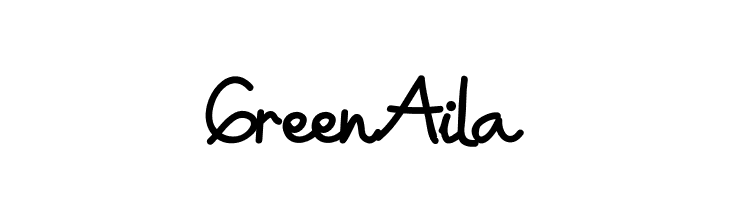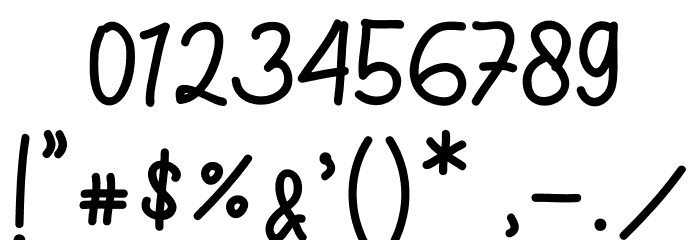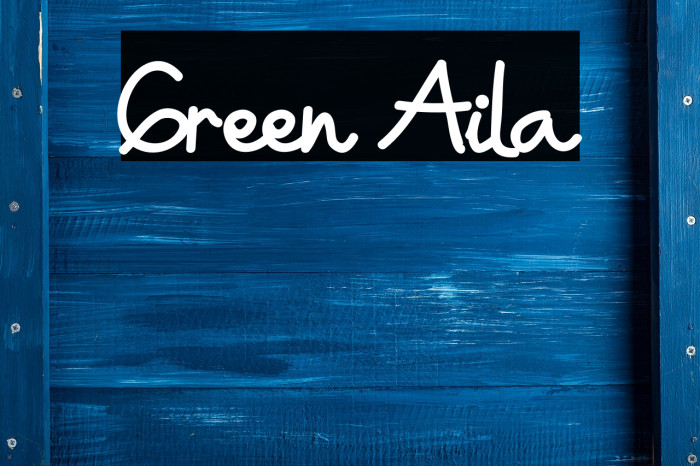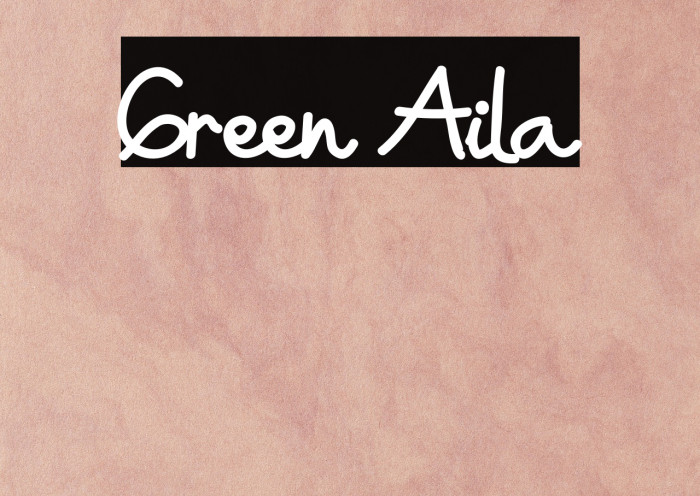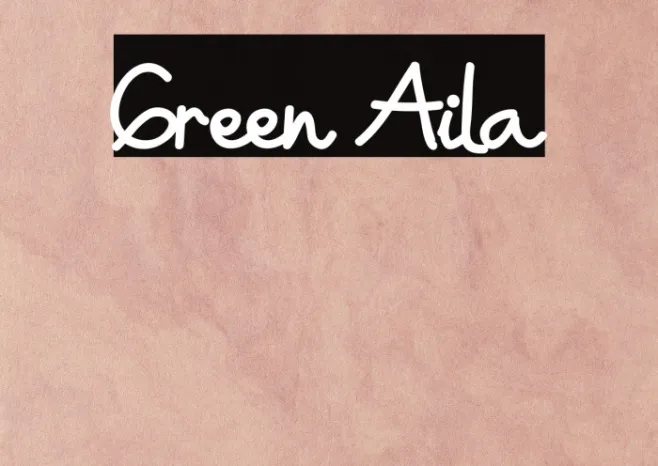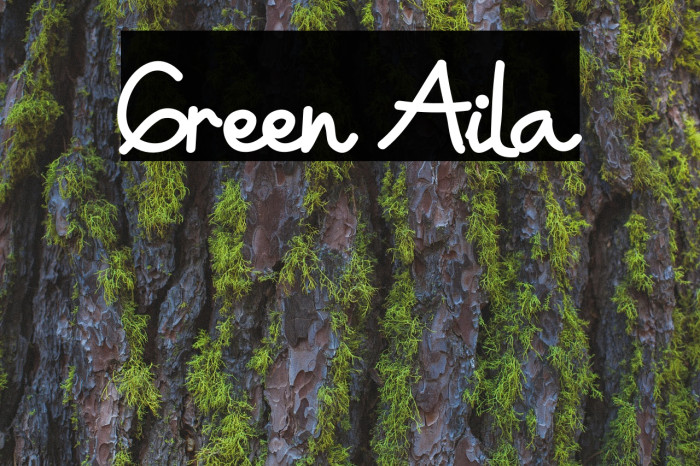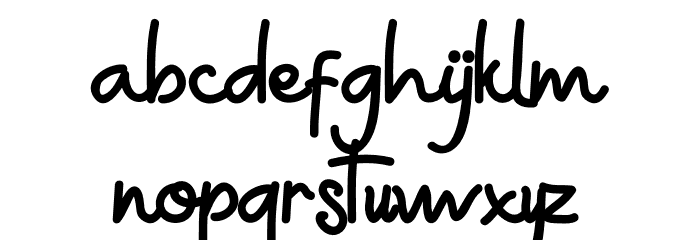
Green Aila Font
This font exhibits a playful and casual handwritten style, characterized by its smooth and flowing letterforms. The uppercase letters are bold and slightly slanted, giving a dynamic and energetic feel. The lowercase letters maintain a consistent style with rounded edges and a friendly appearance. Numbers are clear and easy to read, matching the overall aesthetic. Special characters are integrated seamlessly, maintaining the font's cohesive look. The font's informal and approachable nature makes it suitable for creative and personal projects.
A playful, handwritten font with smooth, flowing letterforms and a casual style.
• Proposed Projects: Ideal for greeting cards, invitations, children's books, and creative branding projects.